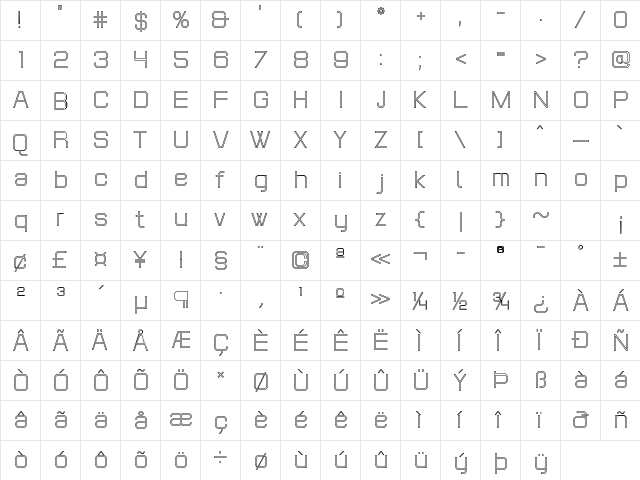
POE Headline Regular
| Foundry | Powerhouse of Entertainment |
| Designer | Daniel Lyons |
Design Context for POE Headline Typeface
POE Headline is a composed and adaptable typeface that performs quietly and consistently across a wide range of design contexts.